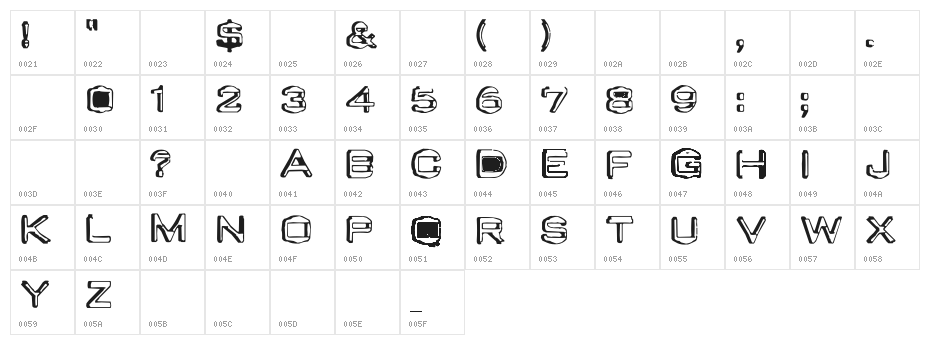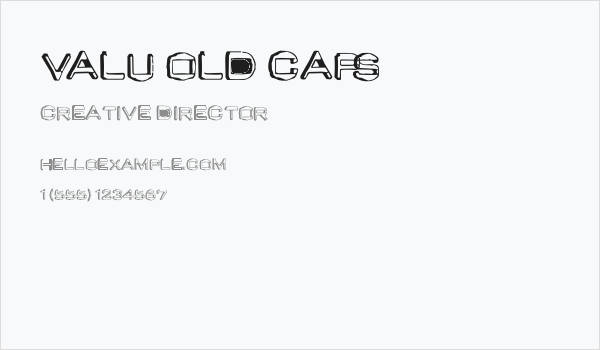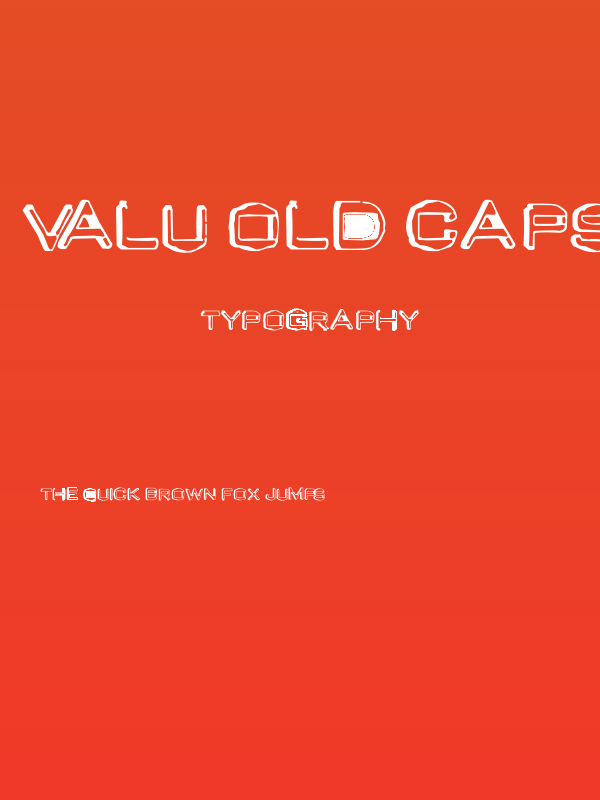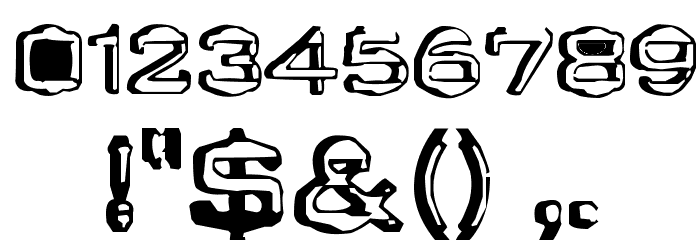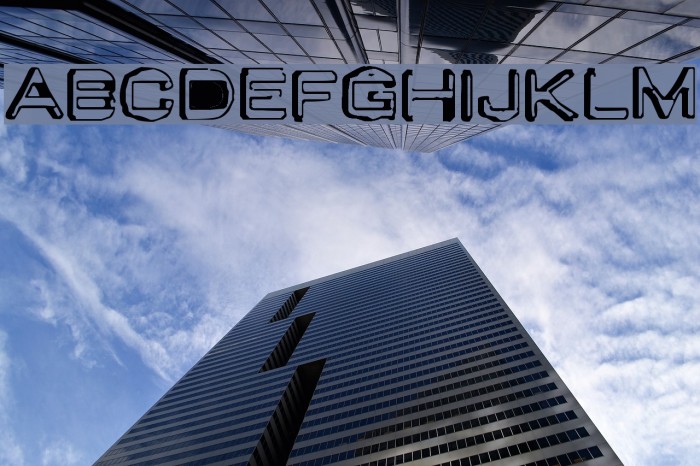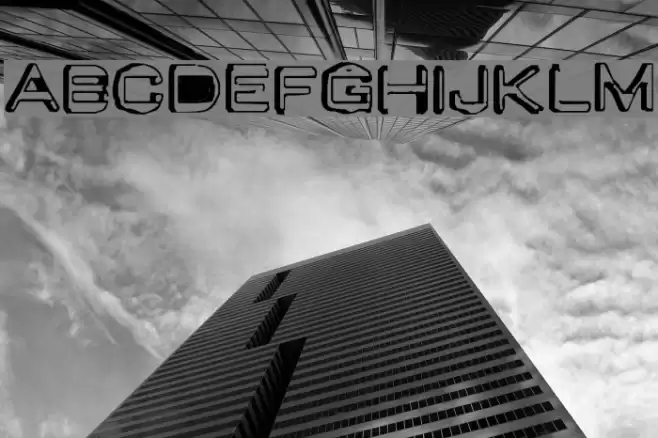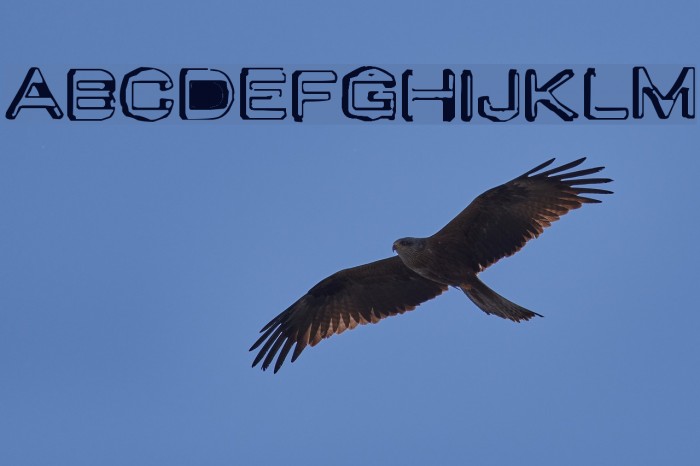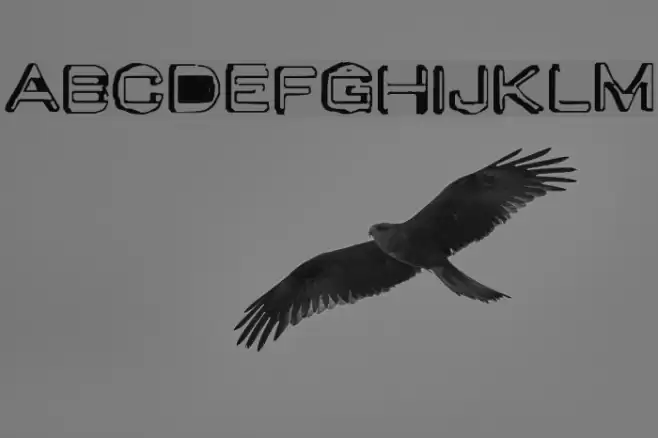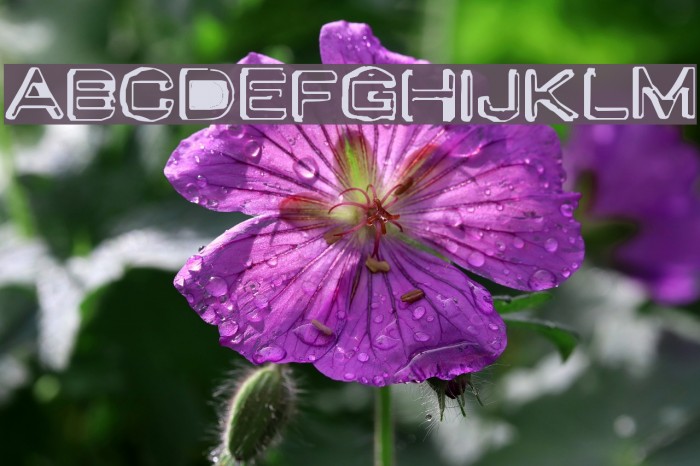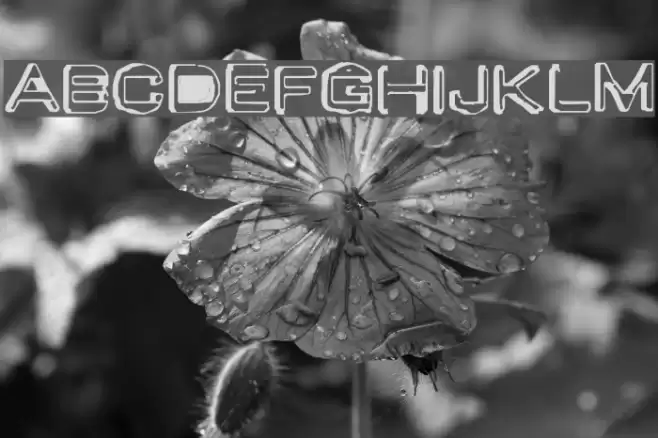
Valu Old Caps Font
Valu Old Caps Description
This font features a bold, industrial design with a distressed, vintage appearance. The uppercase letters are characterized by their thick, blocky outlines and a worn texture that gives them a rugged, aged look. The numerals and special characters follow the same style, maintaining consistency across the set. The font's unique aesthetic makes it stand out, with a strong emphasis on its bold, impactful presence. The distressed effect adds a layer of depth and character, making it suitable for projects that require a touch of nostalgia or a gritty, urban feel.
| Overall Style | Vintage |
| Proposed Projects | Ideal for vintage posters, industrial-themed branding, and retro-style advertisements. |